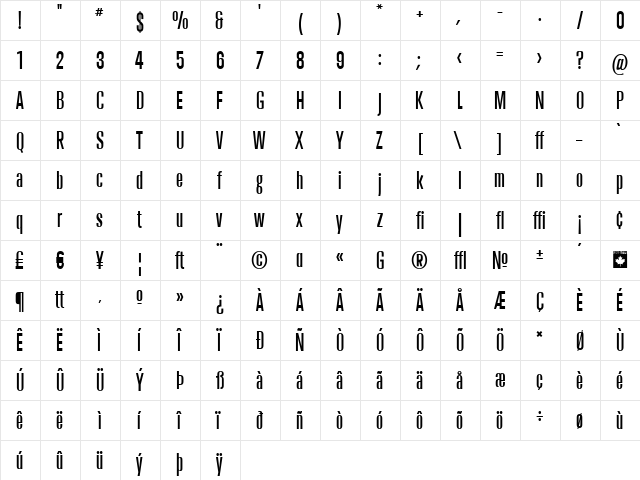
Trump Gothic East Medium Regular Font Preview
Trump Gothic East Medium Regular
Trump Gothic East Medium Regular Font Details
| Foundry | Canada Type |
Design Context for Trump Gothic East Medium Typeface
Trump Gothic East Medium takes a clean, functional approach — its unadorned letterforms prioritise legibility and work reliably across screen and print environments.
Font Pairing: Works well alongside a characterful serif or display font that can carry the expressive load while Trump Gothic East Medium handles the functional copy.
Pro Tip: Pair Trump Gothic East Medium with a display or serif font for headlines — its neutral character makes it an excellent supporting player in complex typographic systems.